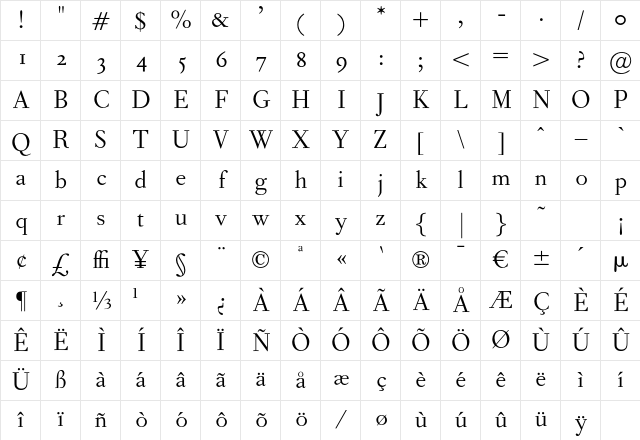
Complete OPTIForquetOldstyleFig Regular glyph index. Displaying only characters natively supported by OPTIForquetOldstyleFig Regular font.
OPTIForquetOldstyleFig carries the refined structure of traditional serif typography, with bracketed terminals and considered proportions that communicate credibility and craft.
Pro Tip: Use OPTIForquetOldstyleFig for editorial body copy and considered headline work. Pair with a neutral sans for UI elements or captions to create a classic hierarchy.